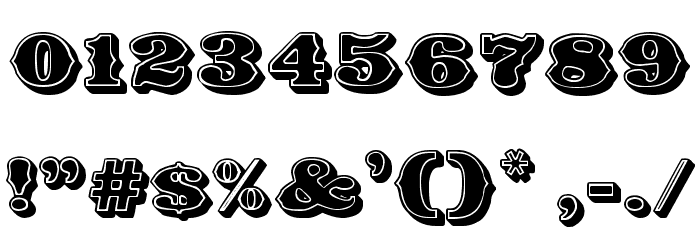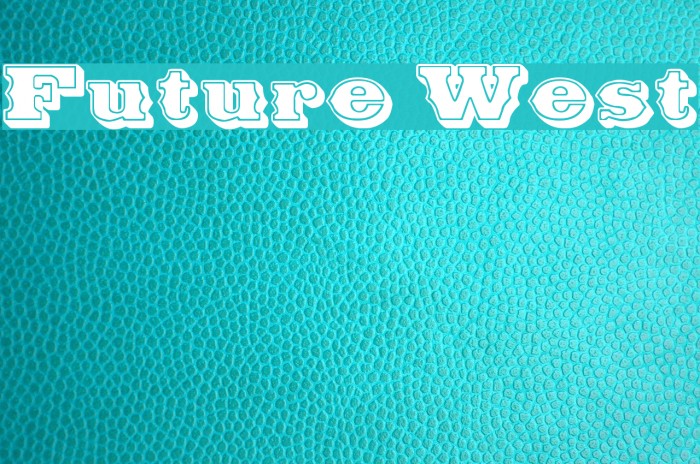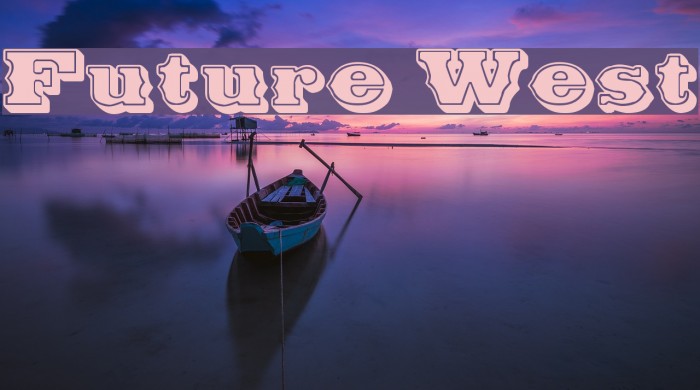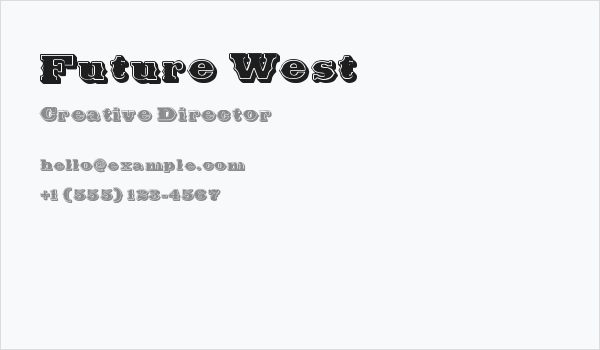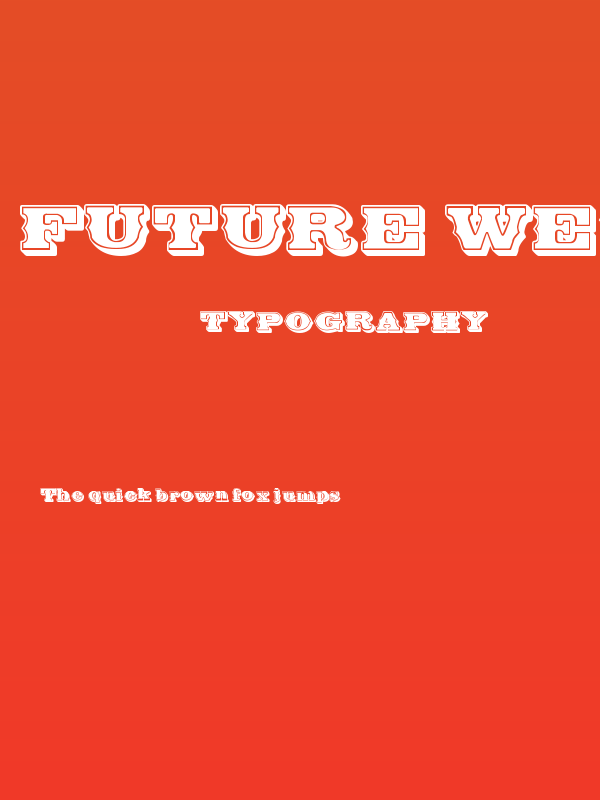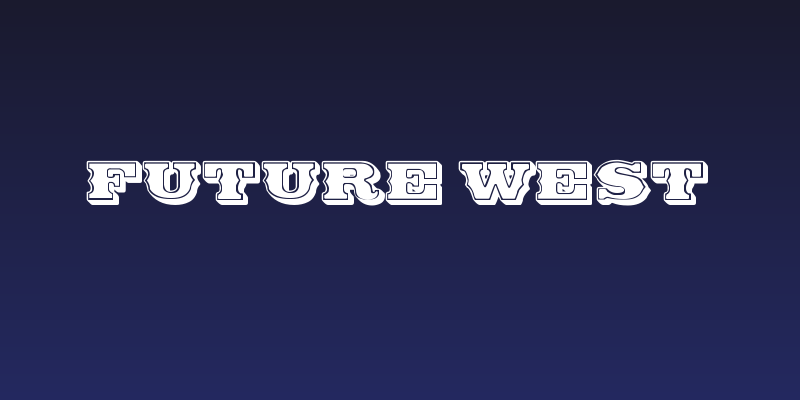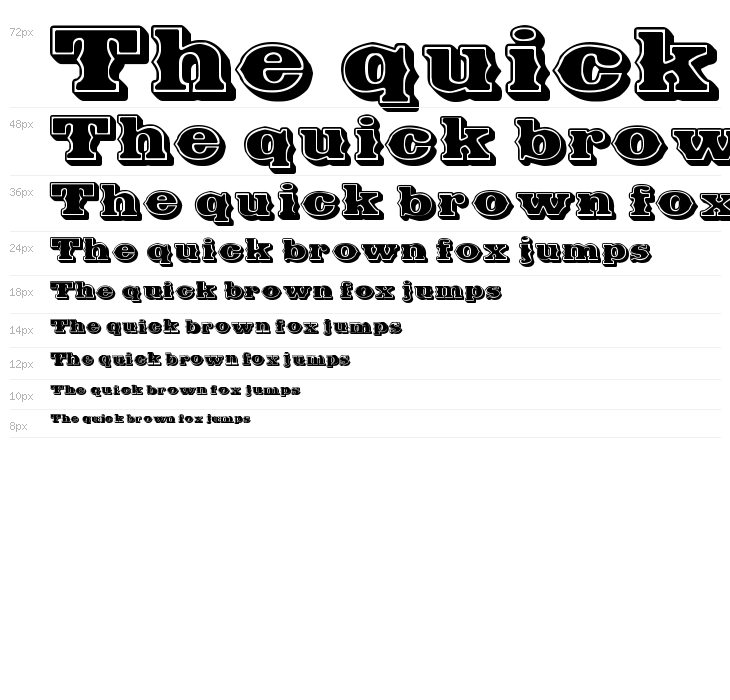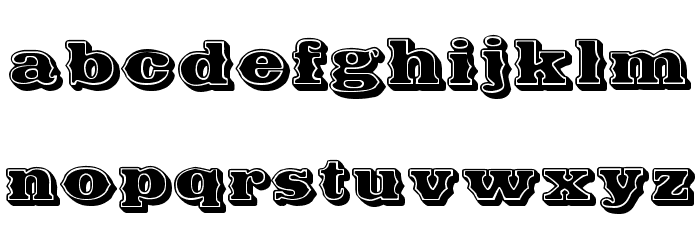
Future West Font
Future West Description
This font features a bold, decorative style with a strong presence. Each character is outlined with a thick border, giving it a three-dimensional effect. The letters are uppercase and lowercase, with numbers and a variety of special characters. The design is reminiscent of vintage western typography, with a modern twist. The boldness and shadowing create a sense of depth and drama, making it ideal for attention-grabbing headlines or logos. The characters are evenly spaced, ensuring readability despite the intricate design.
| Proposed Projects | Ideal for western-themed posters, logos, or branding materials that require a bold, eye-catching typeface. |